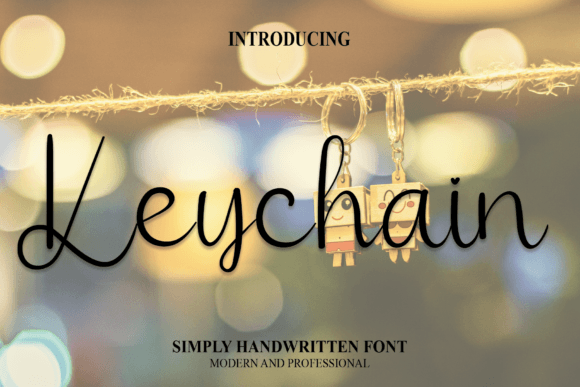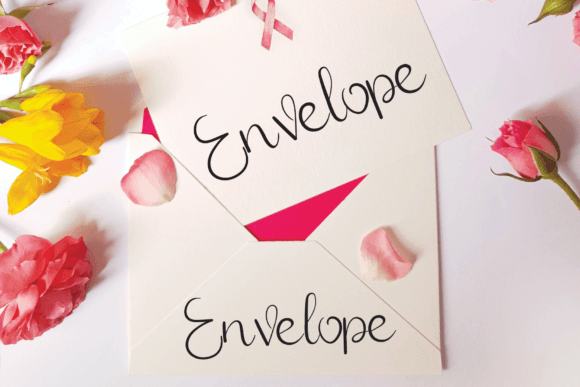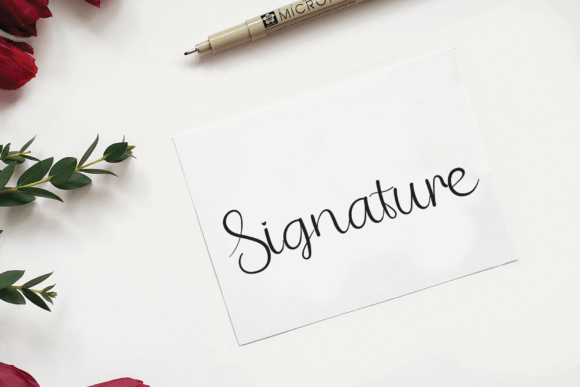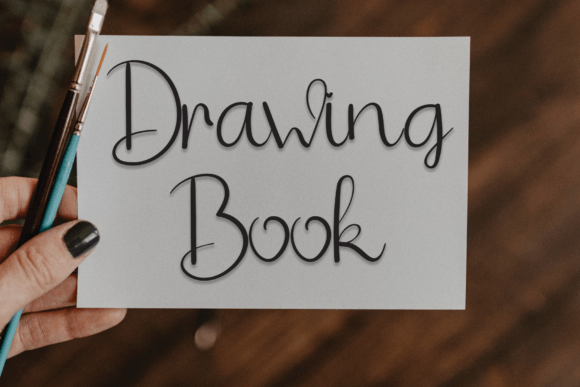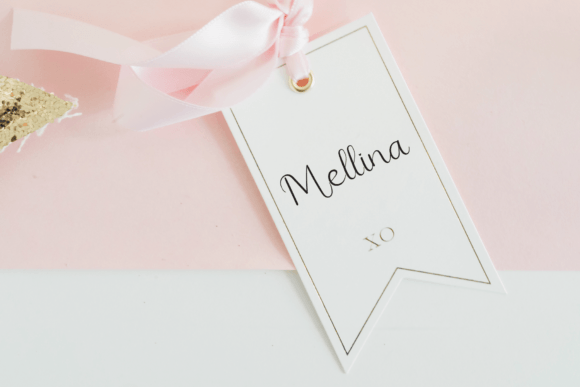
Keychain Font
Keychain Handwritten Font – Fun and Friendly Script
The Keychain Handwritten Font is a playful and stylish typeface designed to bring warmth and personality to your creative projects. With its smooth handwritten strokes and charming look, it adapts beautifully to both personal and professional work. Whether you’re making invitations, posters, or digital designs, this font ensures your projects stand out with a friendly appeal.
A Script with Playful Personality
The Keychain Handwritten Font combines simple handwritten strokes with a fun and approachable style. Its curves give it a natural handwritten feel, while its clean readability ensures professional results. Because of this, it works well for both print and digital projects.
One of the most popular uses of the Keychain Handwritten Font is in invitations and greeting cards. Wedding stationery, thank-you notes, and birthday cards feel more personal and heartfelt when designed with this font. At the same time, it is perfect for posters, product packaging, and branding projects, where a handwritten script adds originality and character.
The Keychain Handwritten Font adapts effortlessly across different design contexts. From crafts and social media graphics to decorative quotes and logos, it adds a handwritten charm that feels both modern and timeless. Its flexibility ensures it becomes a reliable choice for many projects.
Why Designers Love Keychain Font
Designers love the Keychain HandwrittenFont because it balances playfulness with usability. Its cheerful handwritten strokes make projects feel engaging, while its clarity ensures professional quality. This mix of creativity and functionality makes it a must-have typeface.
In summary, the Keychain HandwrittenFont is a fun, friendly, and versatile script typeface. With its playful handwritten design, quick installation, and wide usability, it is perfect for invitations, posters, crafts, and branding projects. Don’t miss the chance to download Keychain HandwrittenFont and bring joyful handwritten beauty to your next design.